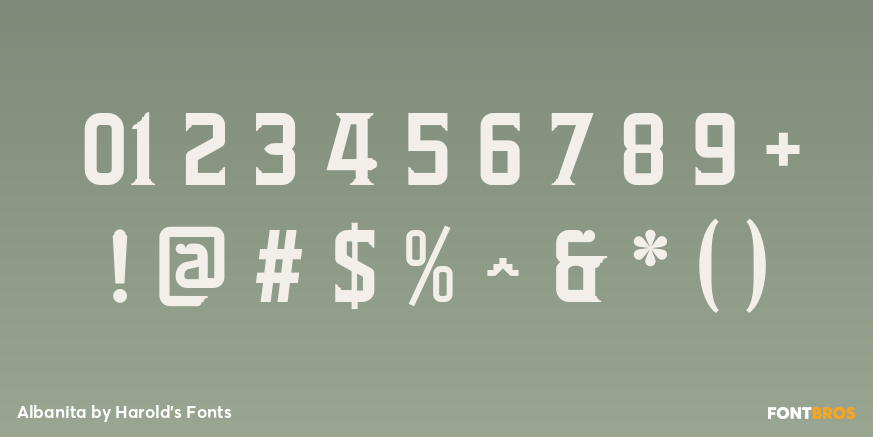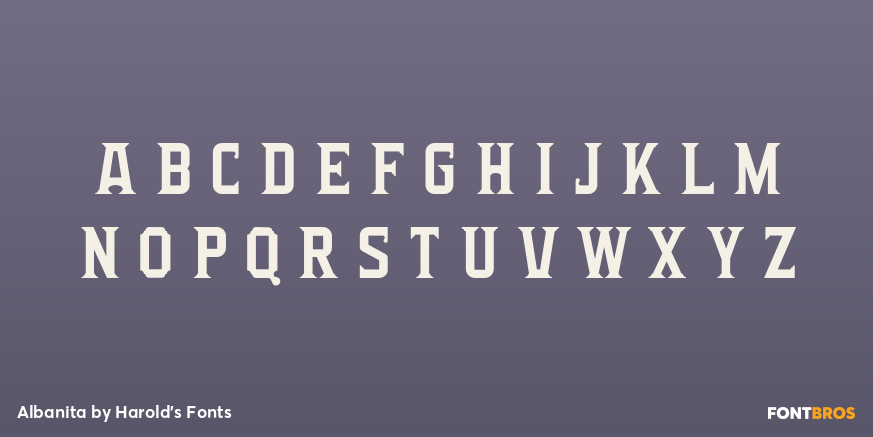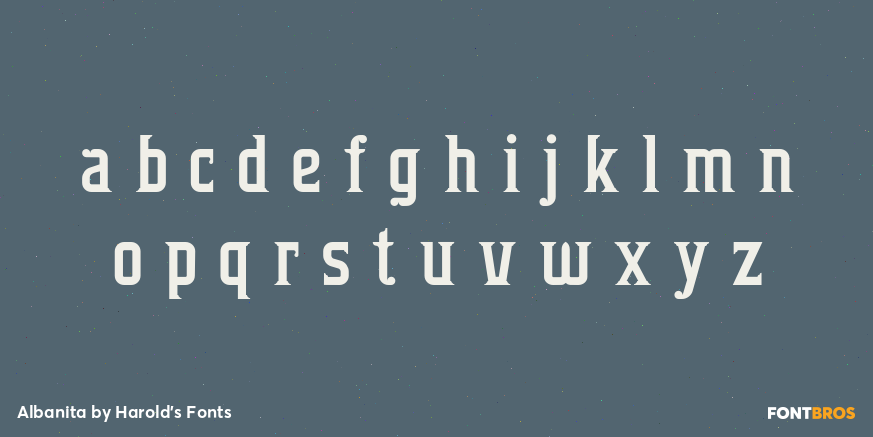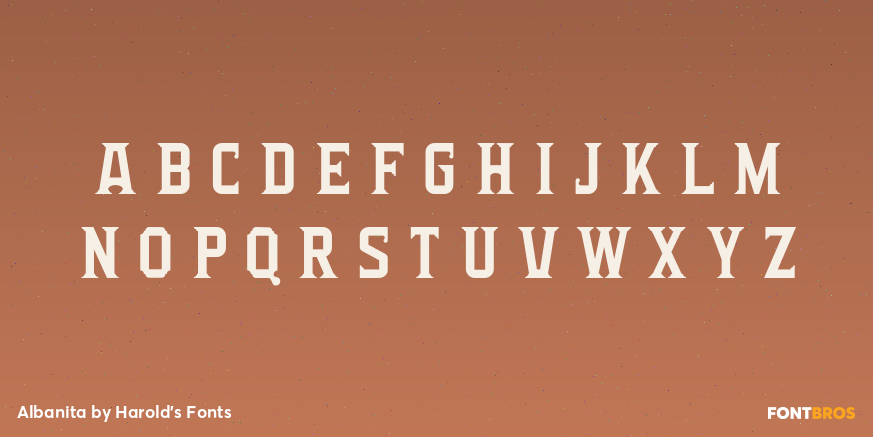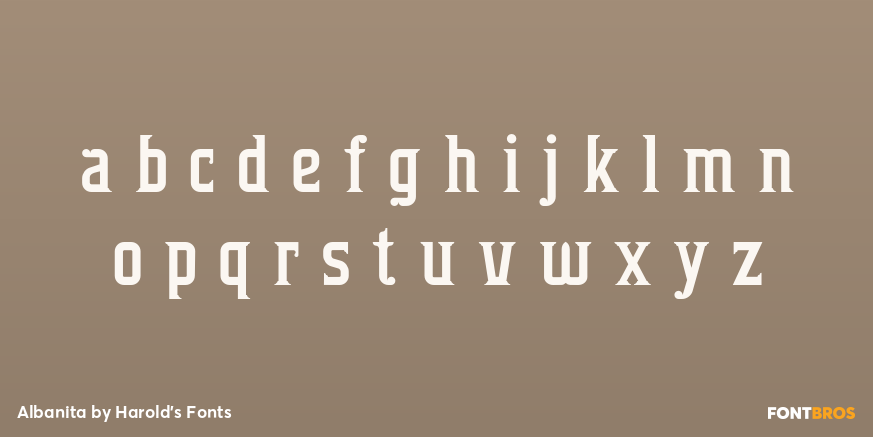
Albanita
Font Family by Harold's Fonts
Albanita is a set of new fonts that give a sense of history, without a specific reference to a time or place. These were indirectly inspired by the city of Albany, New York, my hometown for over 30 years. Albany has a distinctive look and character that has often influenced my work, and that I've deliberately tried to capture here, if not literally.
Albany includes many remarkable historic and modern buildings and an overall design that encompasses 4 centuries. Referencing a woodtype font, I created a squarish geometric structure which became Albanita Sans. Albanita, the serif font, includes shapes from interior and exterior moldings, a loving pastiche of historic ornament. Both are available in 3 weights.